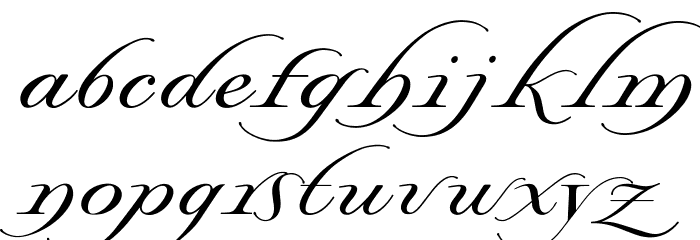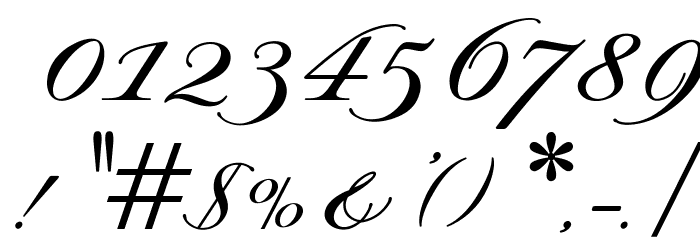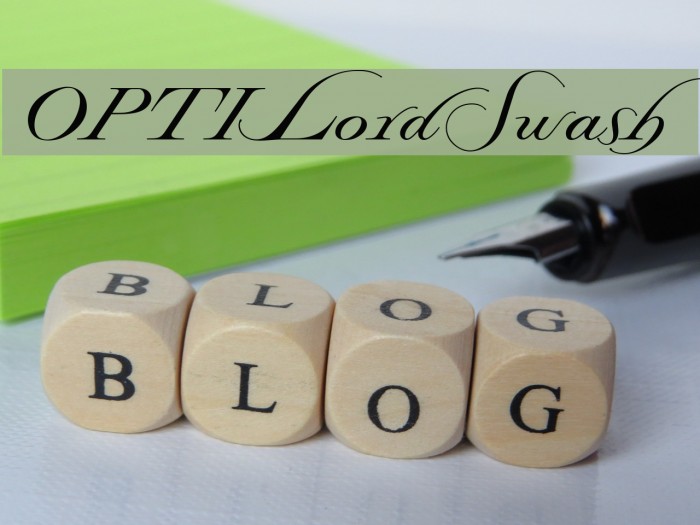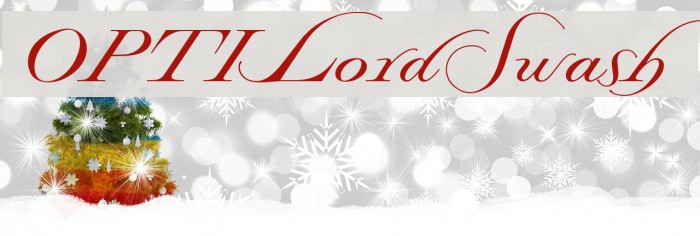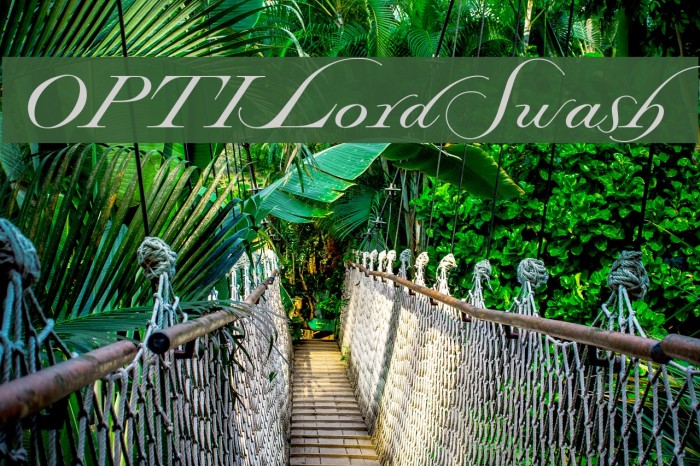
OPTILordSwash Font
This elegant script font features flowing, cursive letterforms with a classic and sophisticated appearance. The uppercase letters are adorned with graceful swashes, adding a touch of formality and flair. The lowercase letters maintain a consistent slant, enhancing the fluidity and continuity of the text. The numerals are styled to match the overall cursive theme, providing a cohesive look. Special characters are designed with the same attention to detail, ensuring they blend seamlessly with the rest of the font. This font exudes a timeless charm, making it suitable for formal invitations, certificates, and other high-end design projects.
An elegant script font with flowing, cursive letterforms and graceful swashes.
- Proposed Projects: Ideal for wedding invitations, formal event programs, certificates, and luxury branding.
- Category: Script
- Contrast: High
- Overall Style: Classic
- Use Case: Headlines, Invitations, Branding